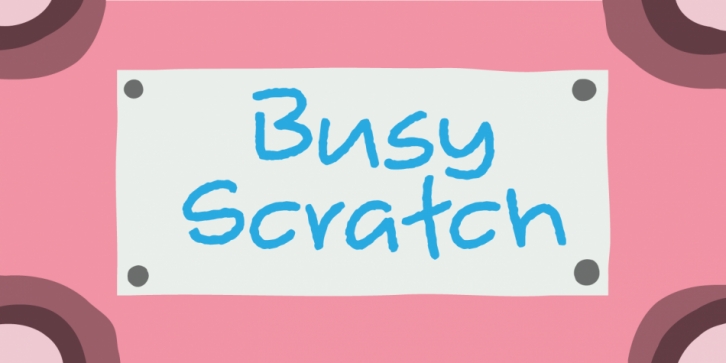
Designed by Jakob Fischer, Busy Scratch is a hand drawn and kids font family. This typeface has two styles and was published by Pizzadude.dk.
Busy Scratch is very useful for something that needs a simple, yet eye-catching handmade look. The letters are carefully hand-kerned and spaced for a natural and legible look.
For extra energy, try switching between Regular and Italic!